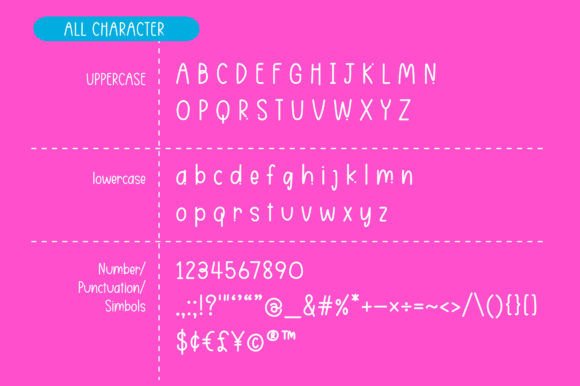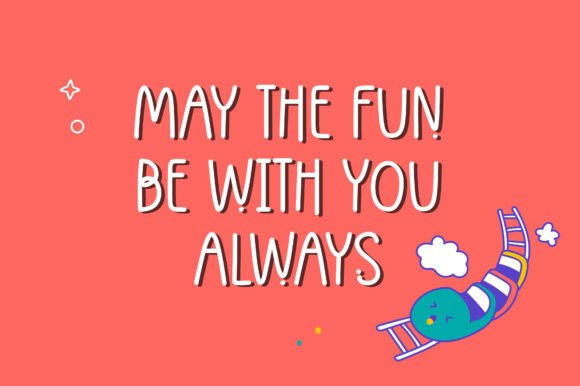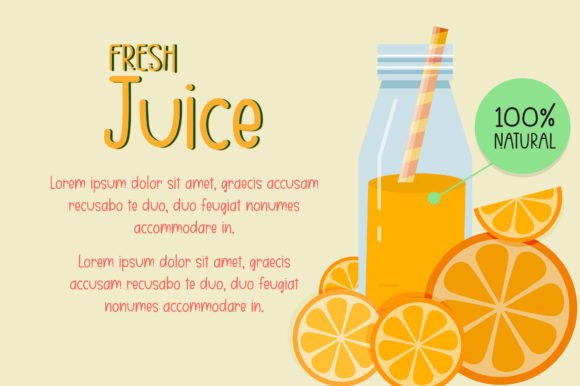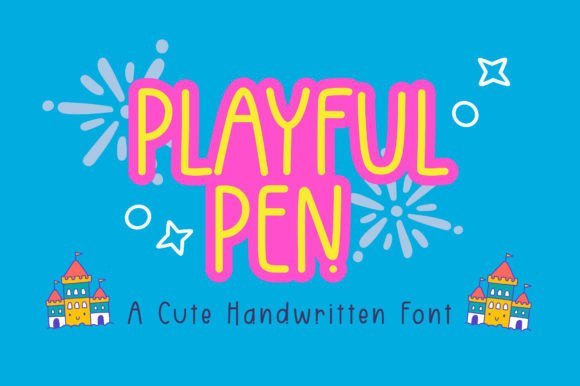
Introduction to Playfulpen Font
Introducing the PlayfulPen, the ideal choice for digital planning and note-taking.
Its neat handwriting aesthetic and sans serif style give it an air of simplicity and cleanliness This handwritten font not only brings an adorable touch to your digital notes, but it also serves as an excellent choice for college note preparations and more.
Key Features of Playfulpen Font
Why Choose Playfulpen Font?
Playfulpen Font offers exceptional quality and versatility, making it a valuable addition to your design toolkit. Whether you’re creating for personal projects or commercial use, Playfulpen Font delivers professional results.